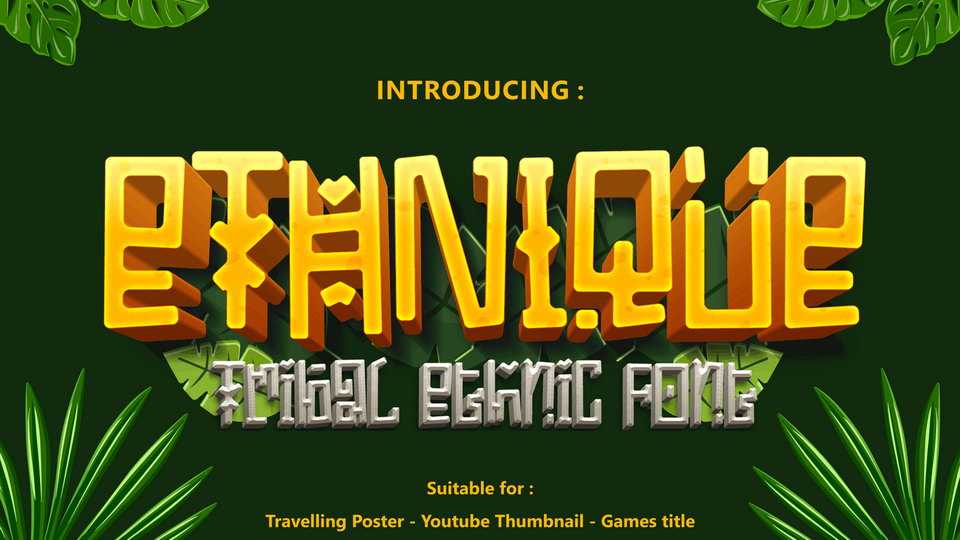
Download Ethnique font, a decorative display typeface that taking shape from Maya and Aztec tribal writing and graphic in mind. With such quirky shapes and lines, Ethnique emphasize the ancient feel and tribal vibe of the game you have.